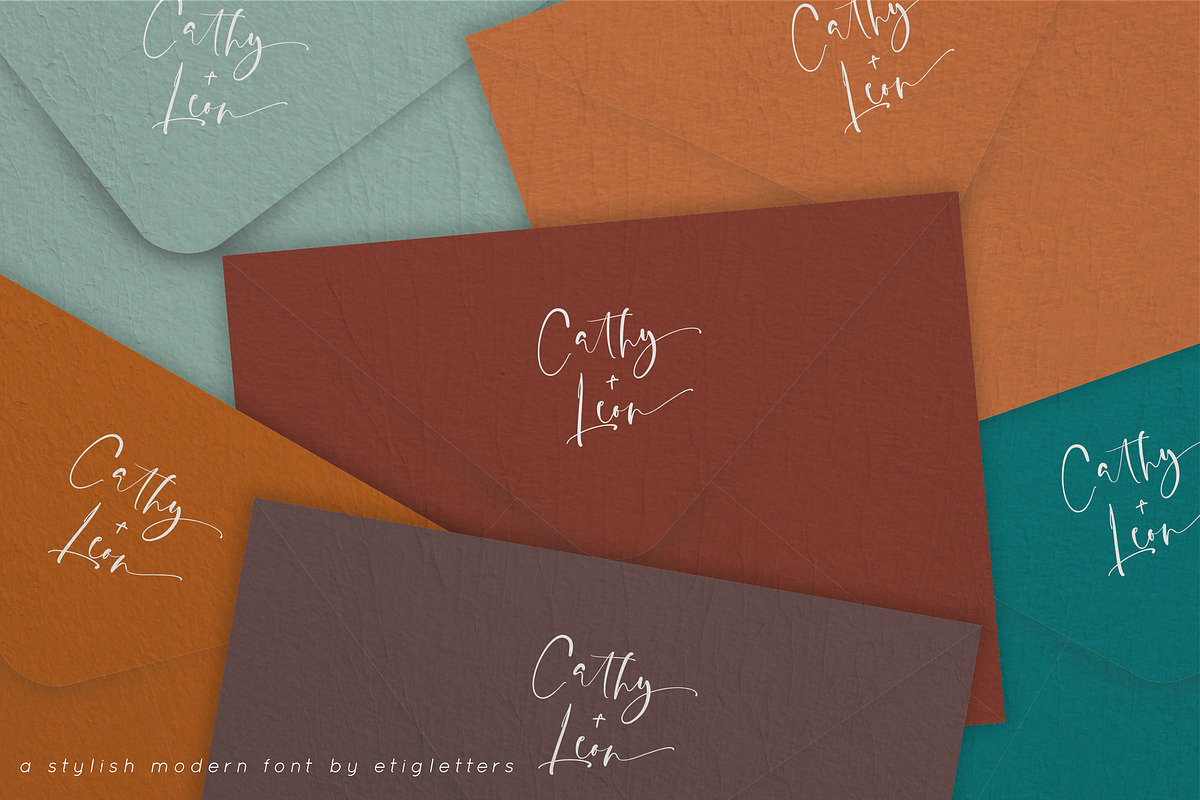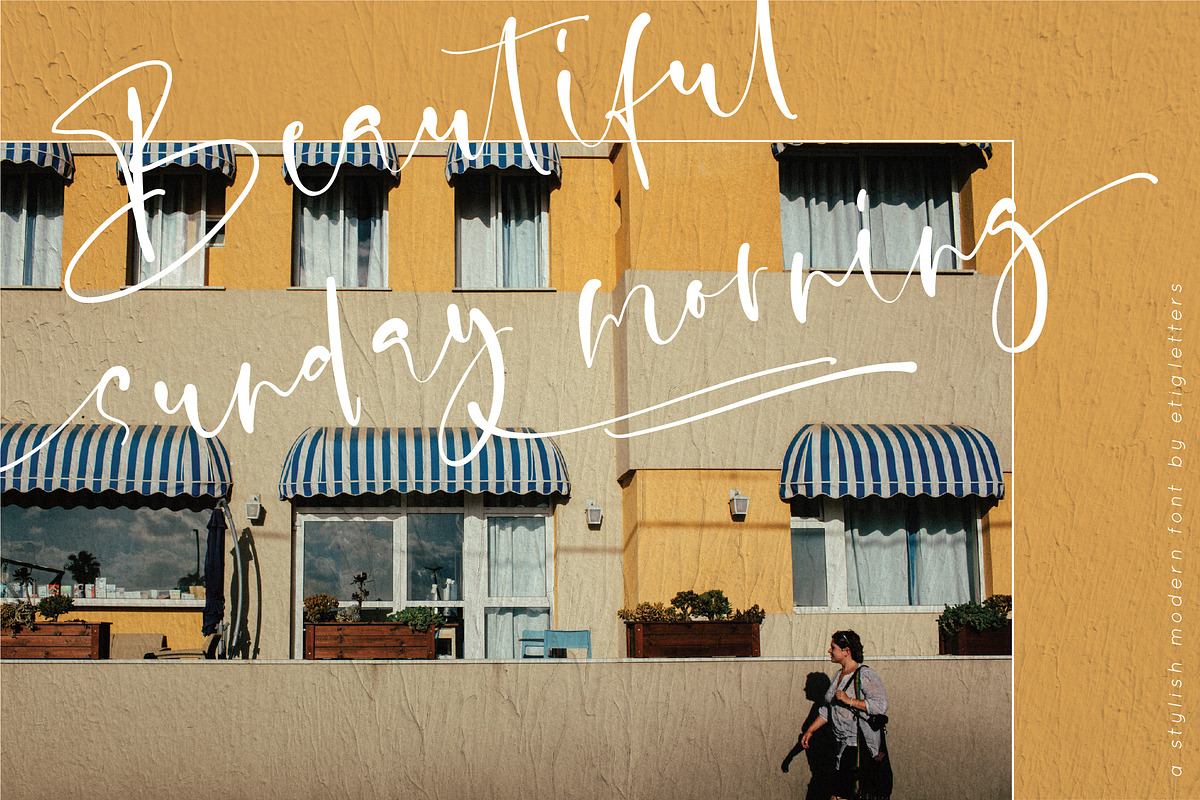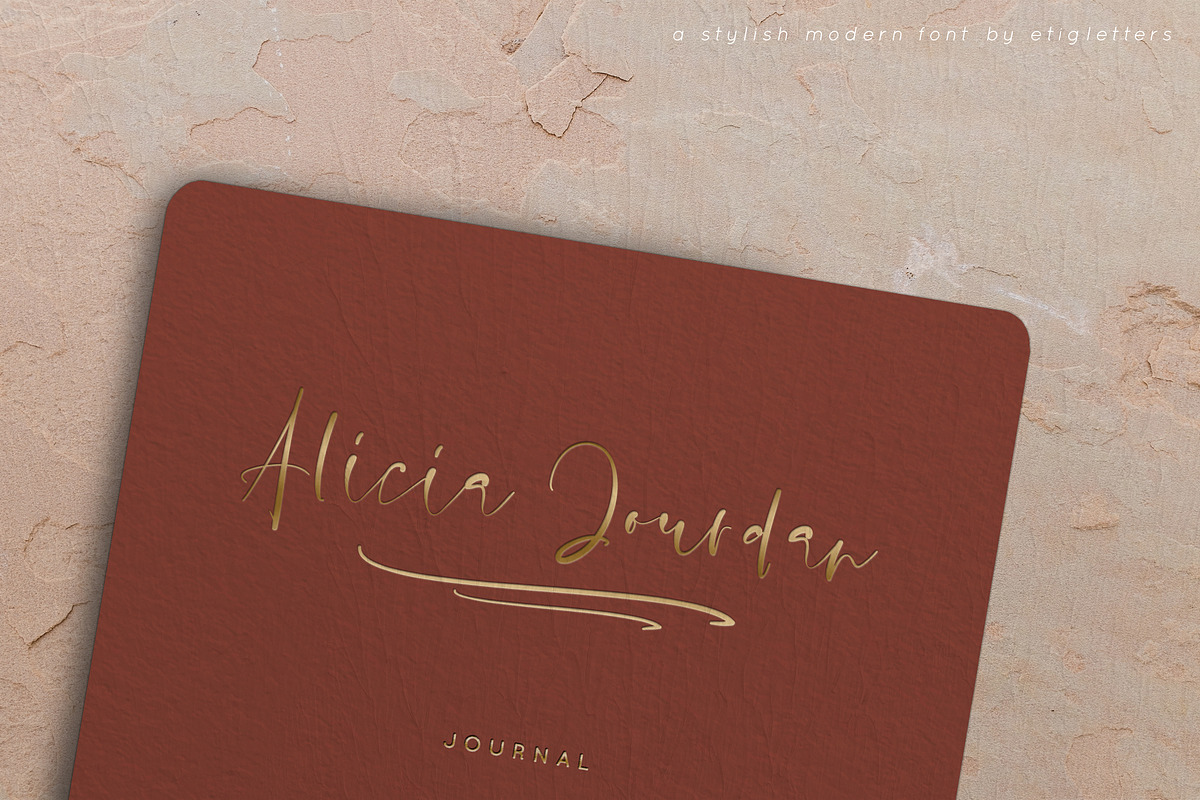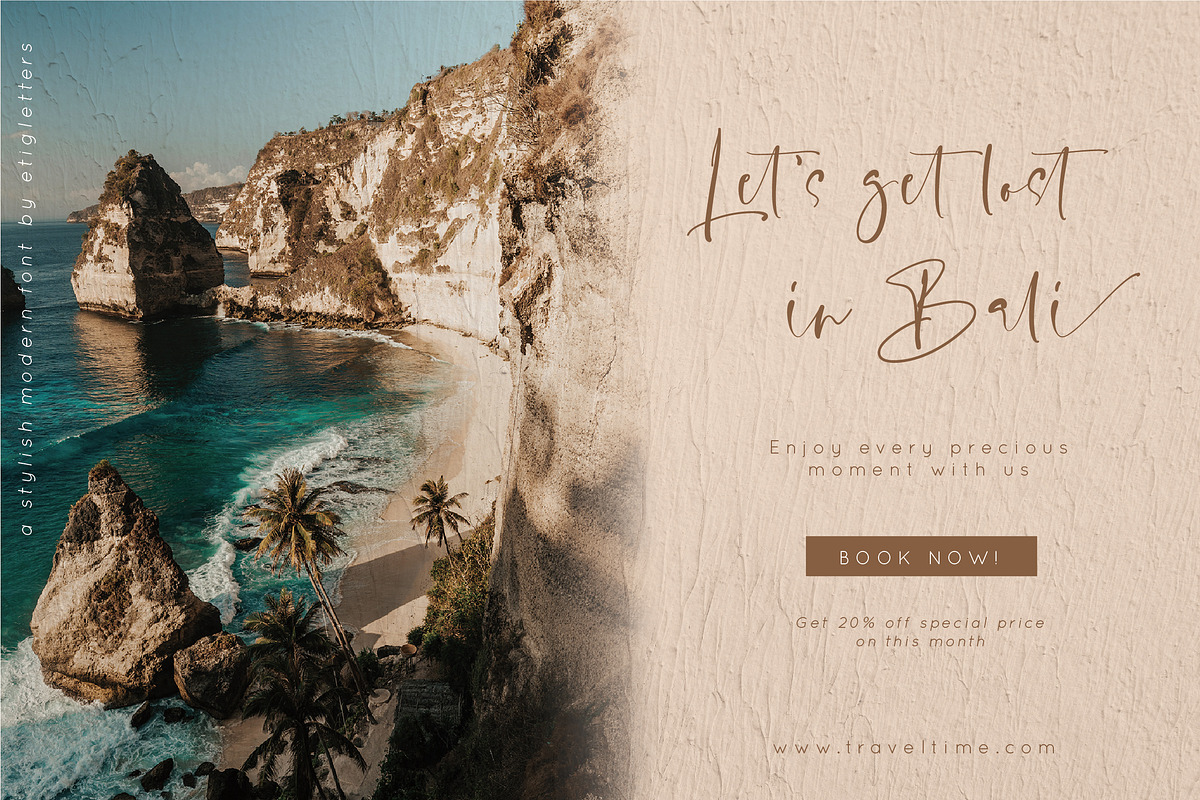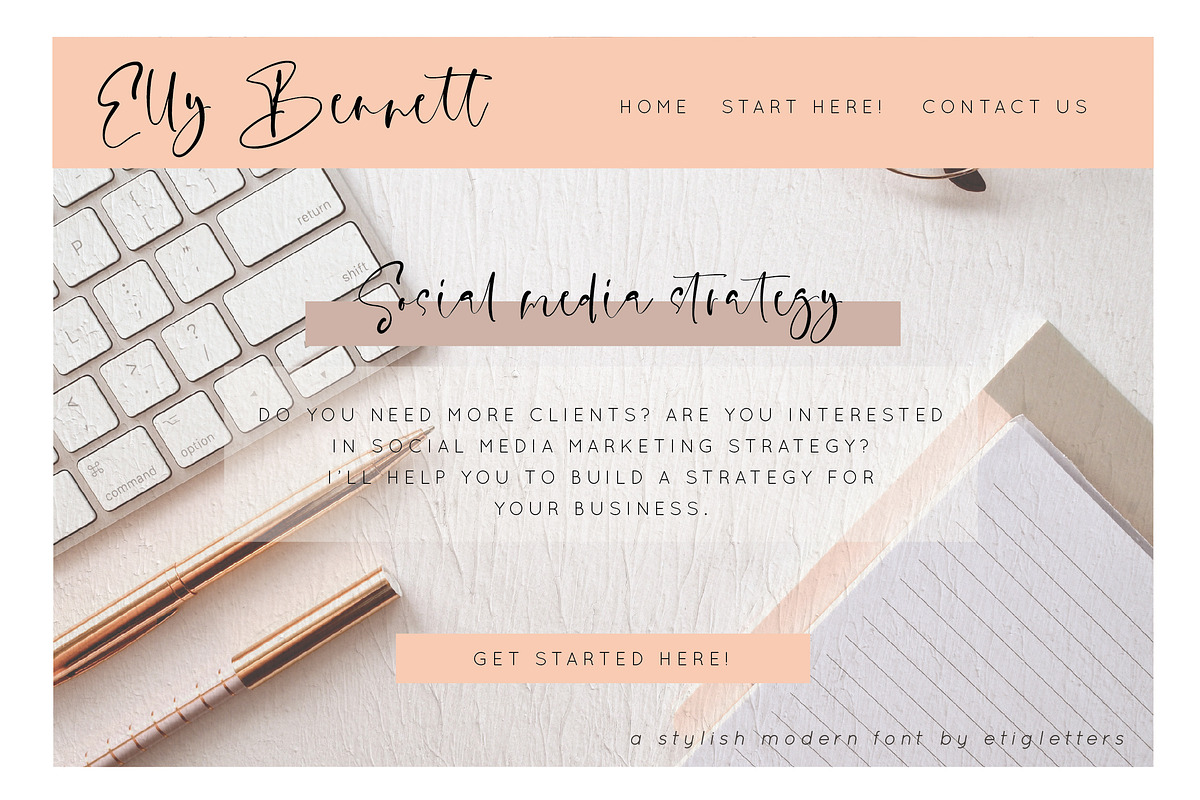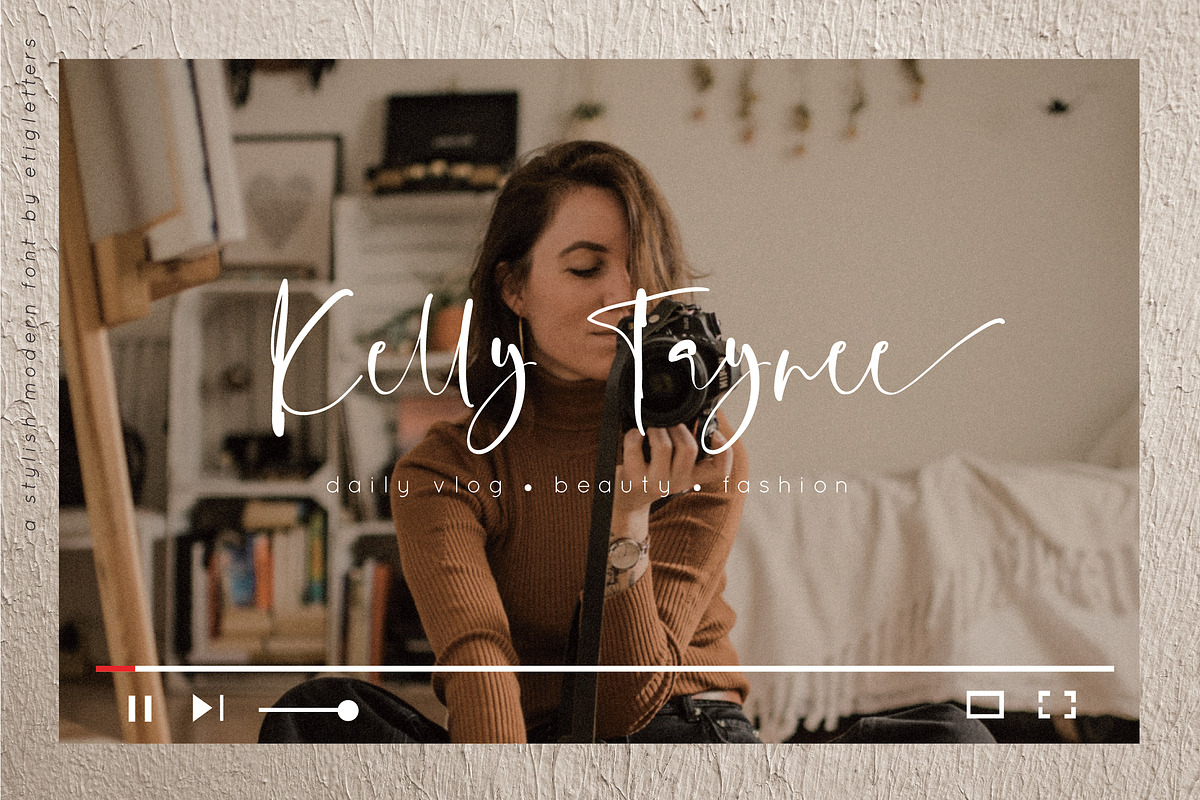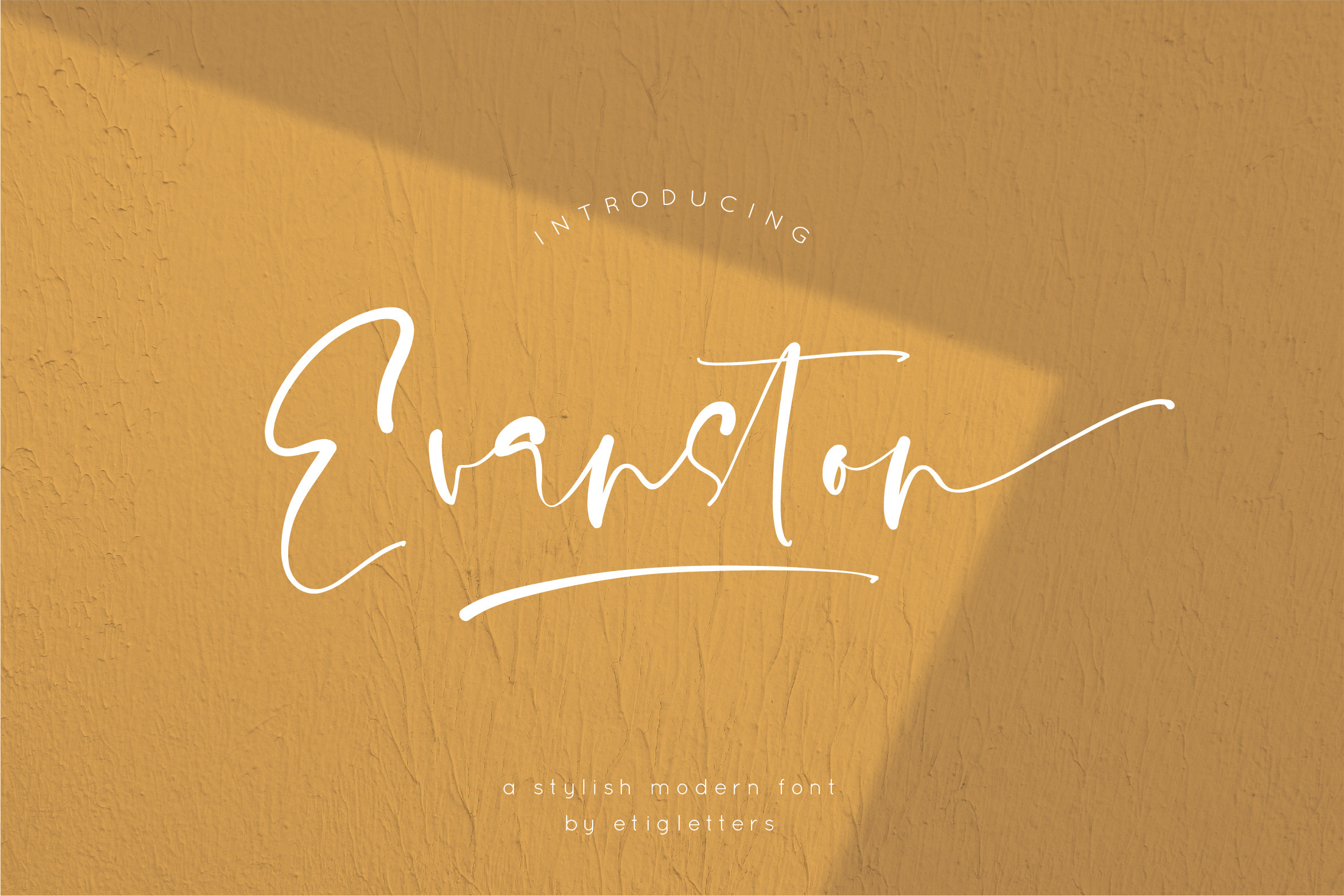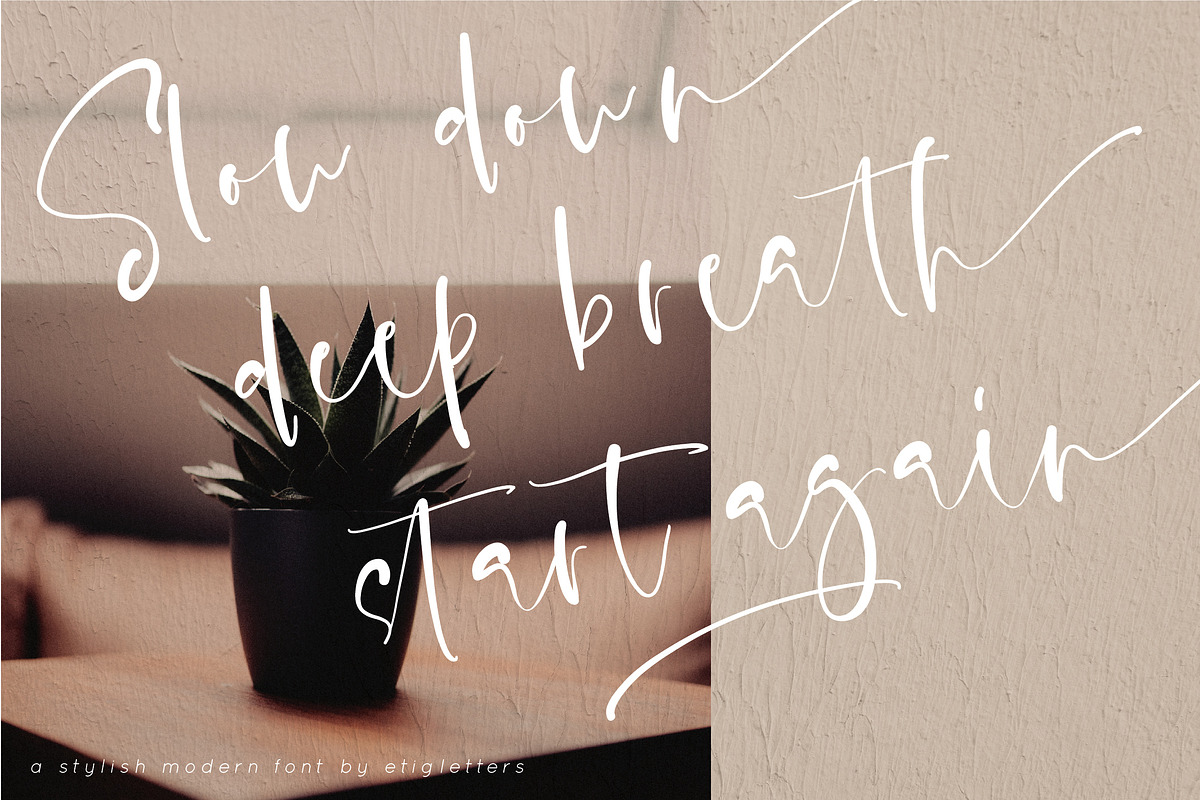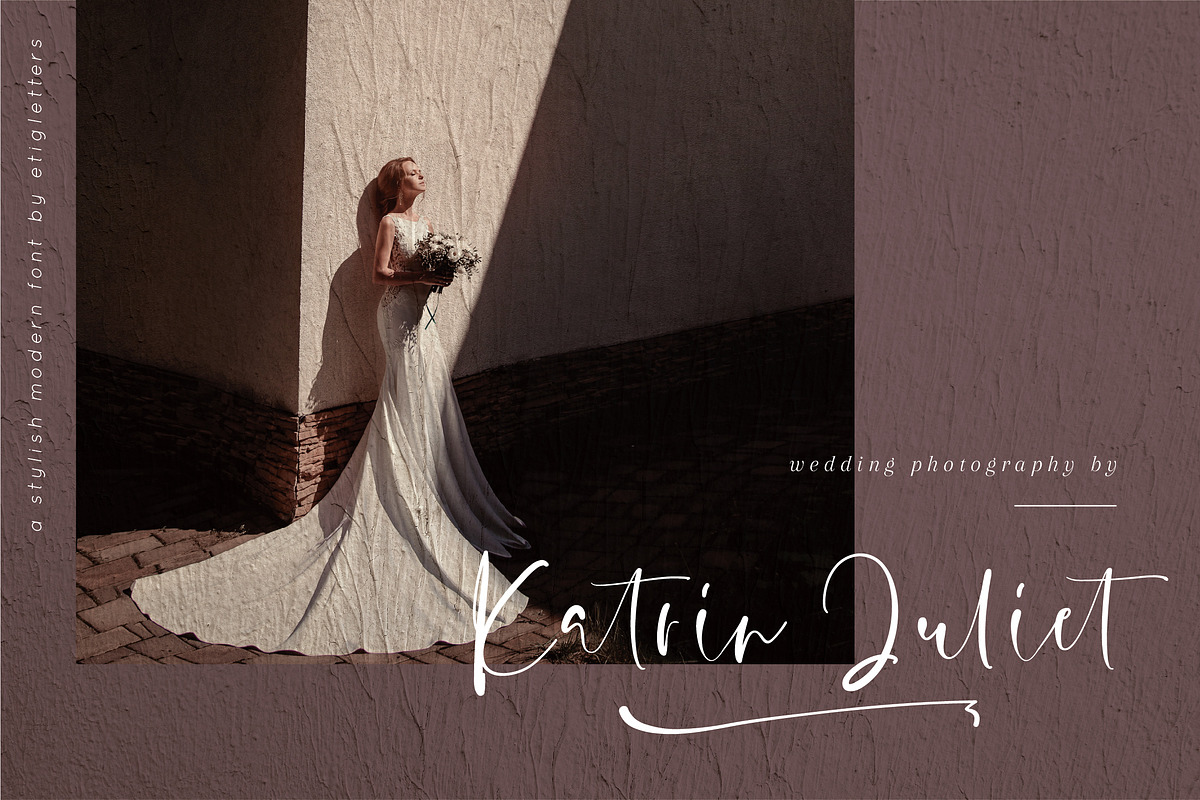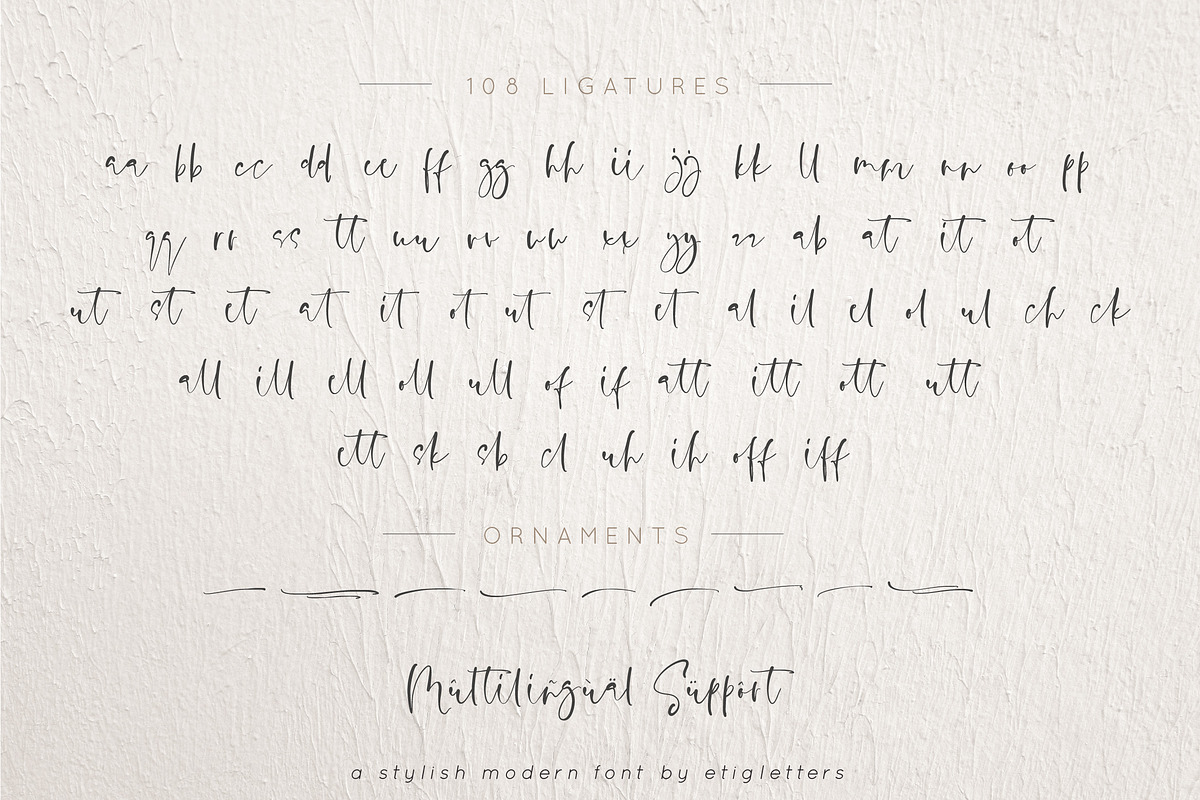
Evanston - Stylish Modern Font
Evanston is a casual handmade modern script font with stylish look perfect for creating beautiful logo, signage, social media, blog posts, styled quotes, packaging, website, branding, wedding stuff and more!
Evanston includes full set of gorgeous uppercase and lowercase letters, numerals, a large range of punctuation and more than natural looking 50 ligatures. All lowercase letters include beginning and ending swashes, giving realistic hand-lettered style. BONUS ornaments to add to the authenticity of your type design. Evanston is also support multilingual and already PUA Encoded!